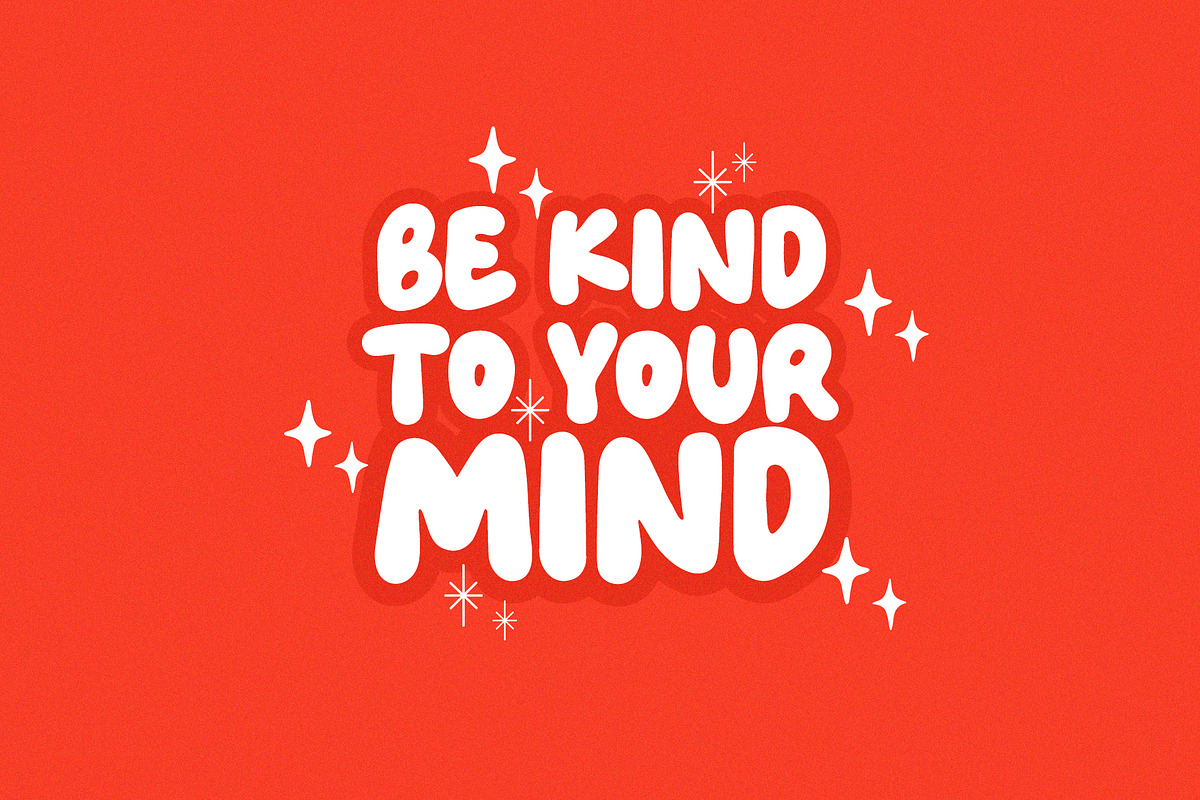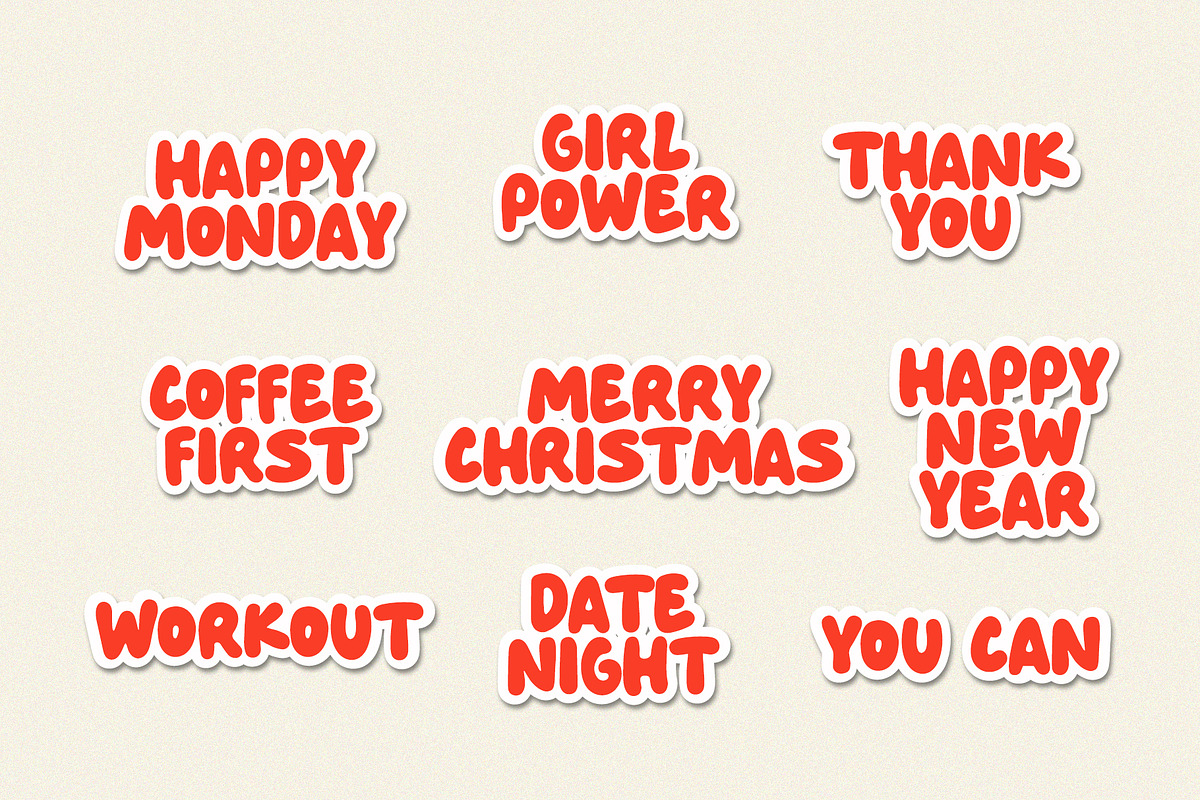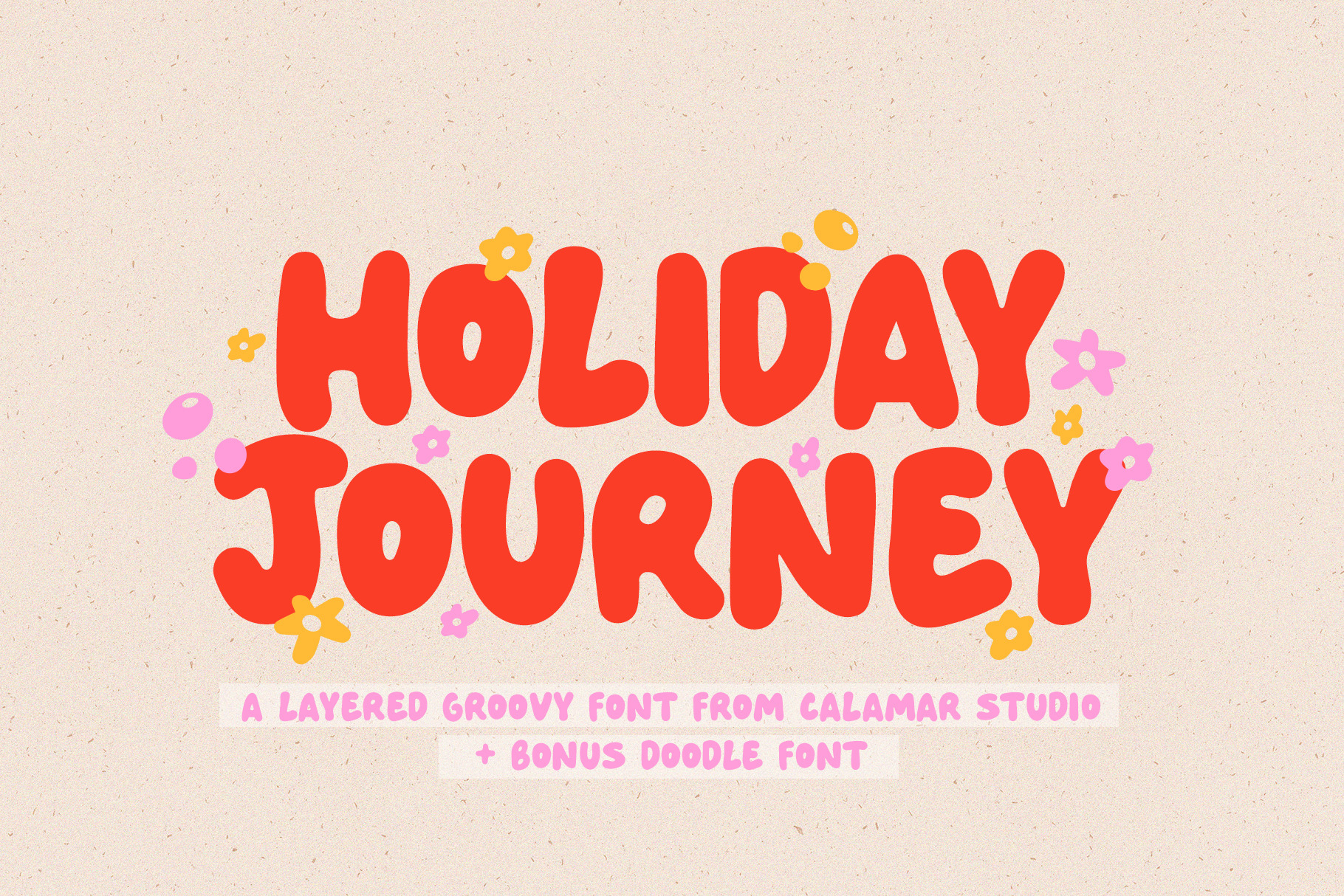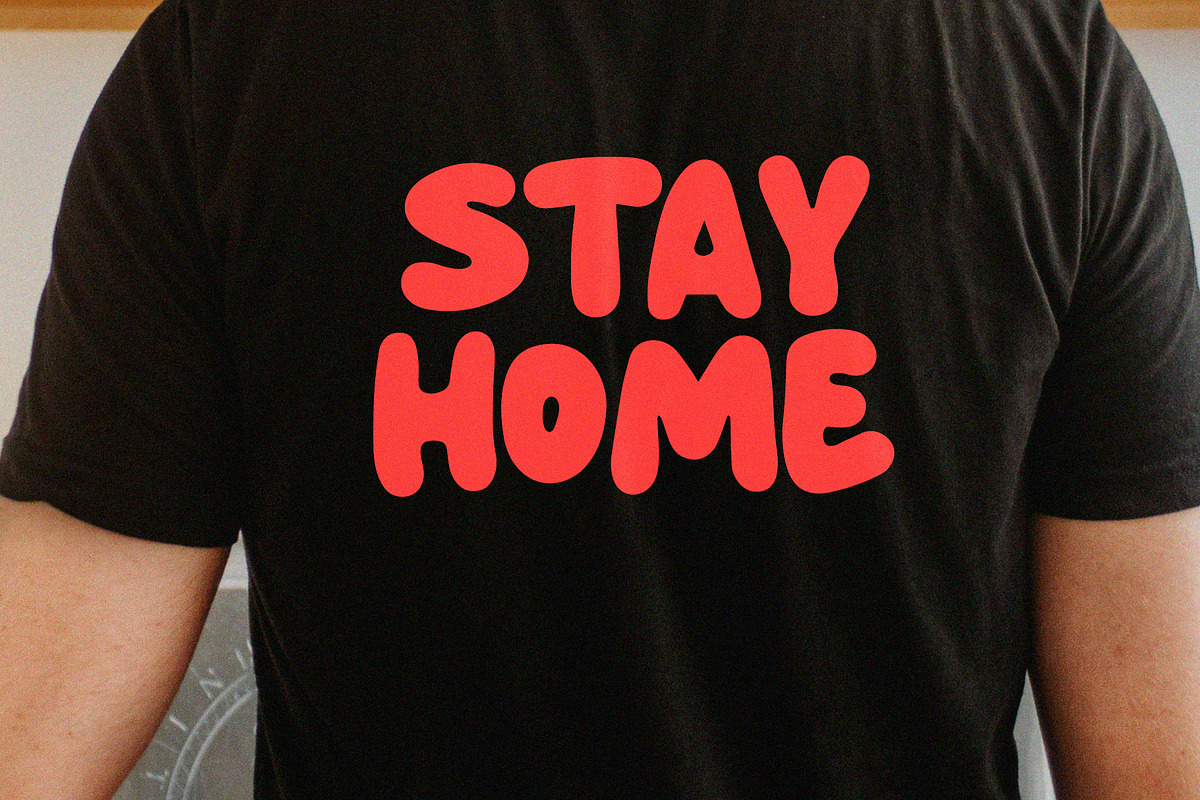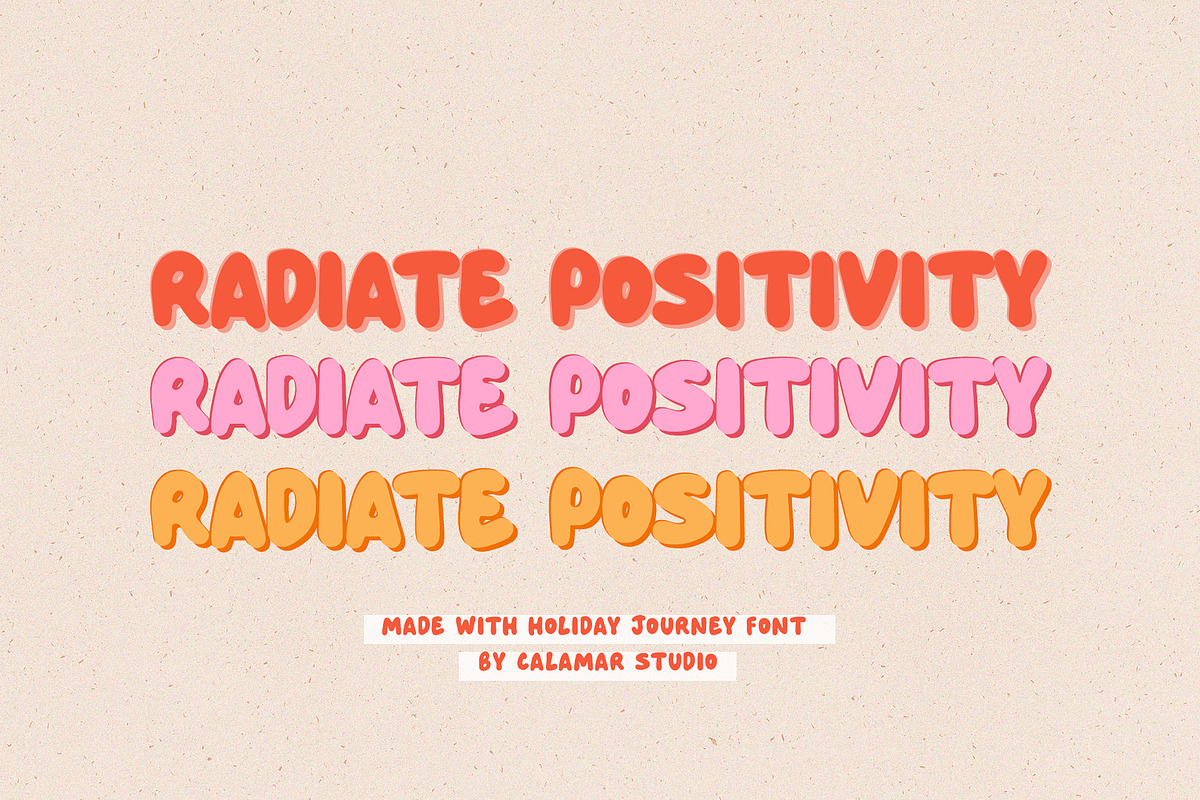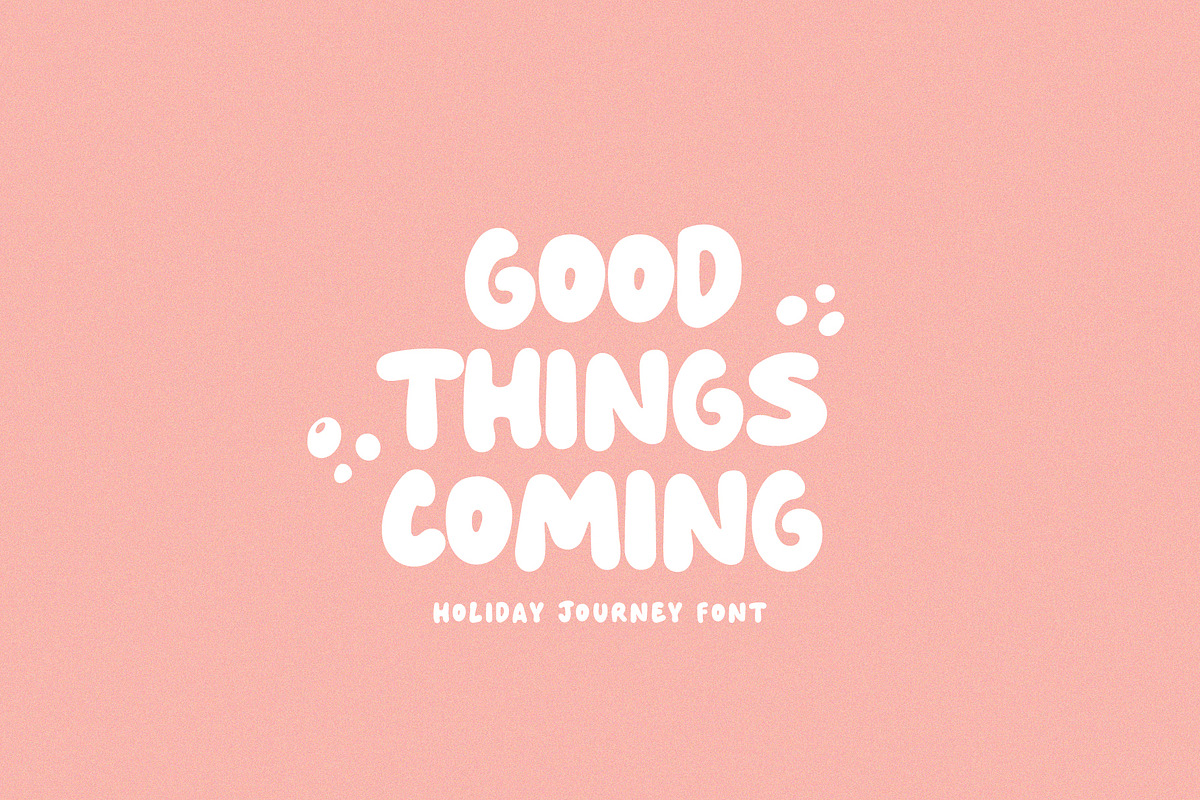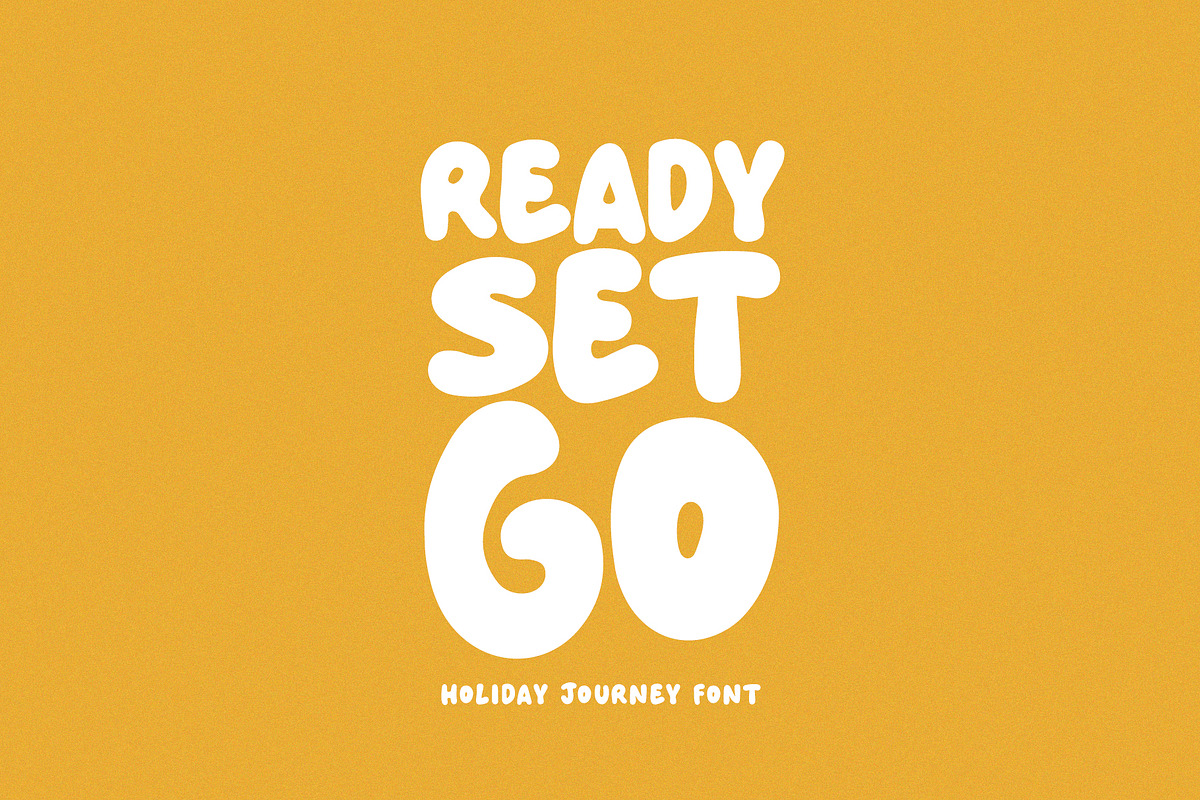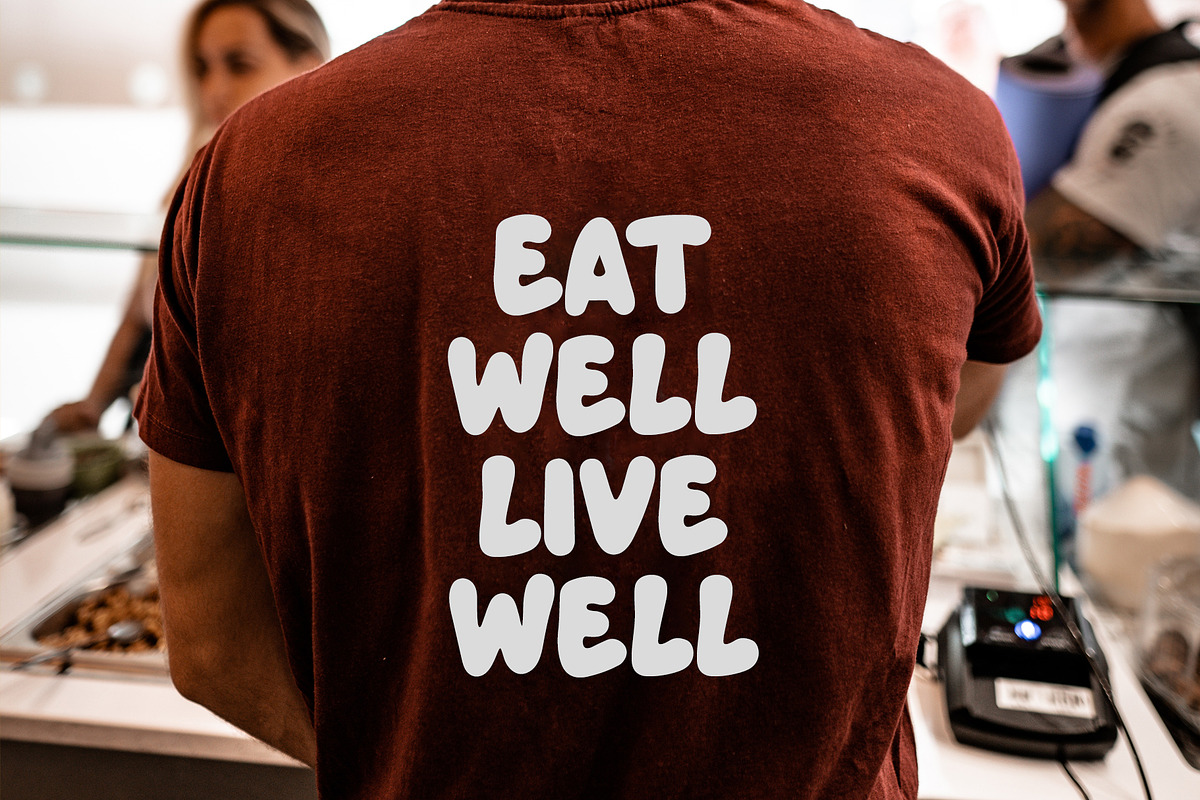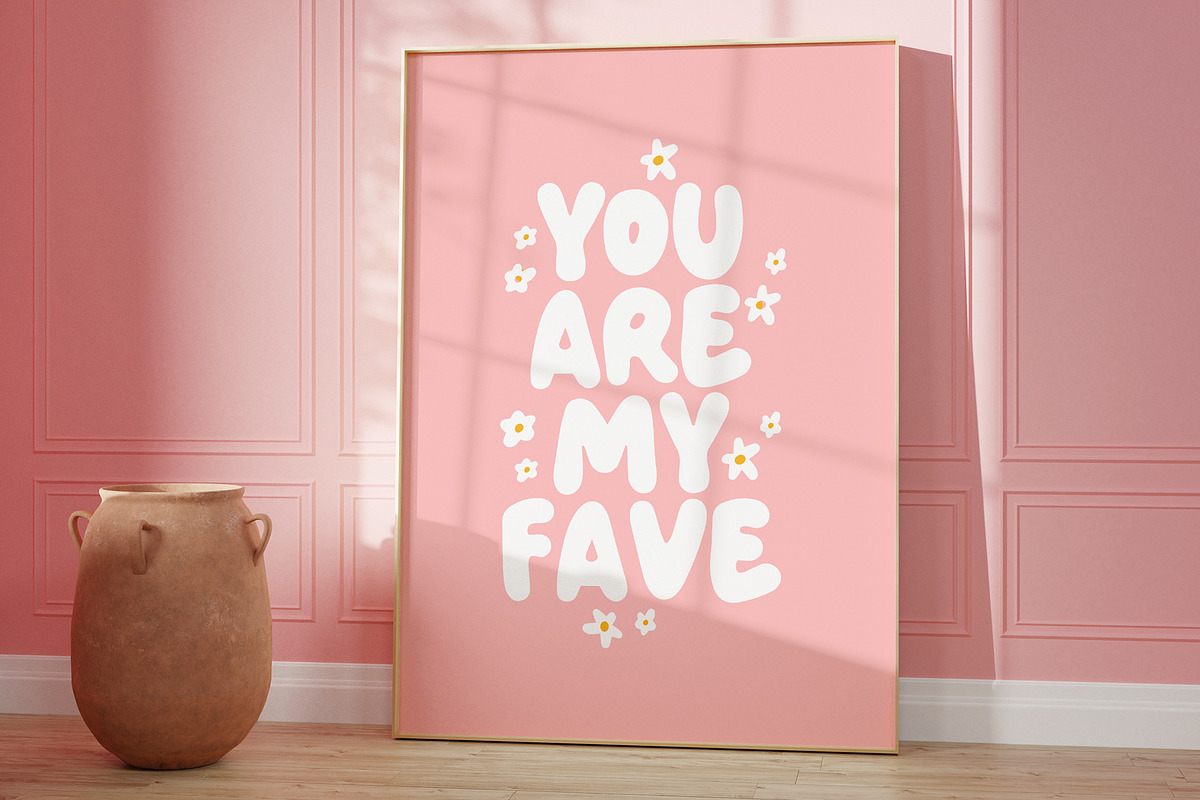
Holiday Journey | Bubble Font
Say hey to fun and bold layered font Holiday Journey that is here to inspire you.
It will look great for greeting cards, stickers, instagram posts, quotes, playful branding. Use the font on its own or layer the hand drawn shadow and doodle layers to creating more playful look. Get inspired by the previews :)